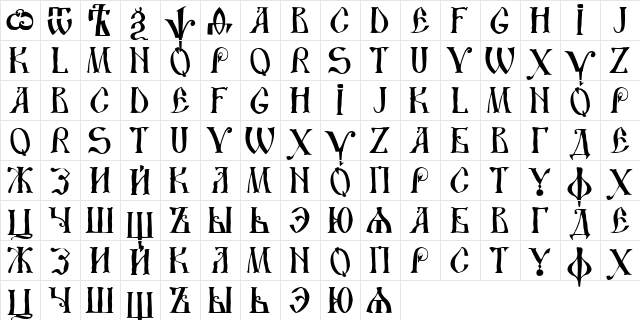
DS UstavHand Regular
| Designer | Dubina Nikolay |
Design Context for DS UstavHand Typeface
DS UstavHand flows with the natural rhythm of handwritten lettering, making it ideal for designs that call for warmth and personal expression.